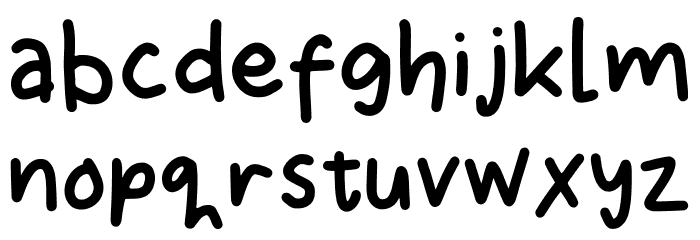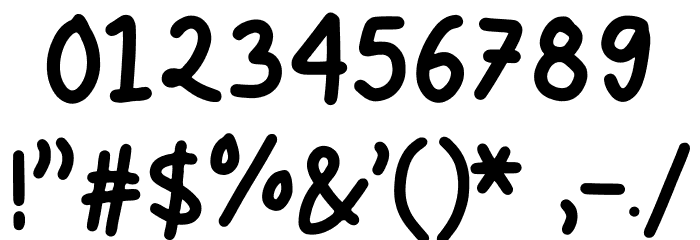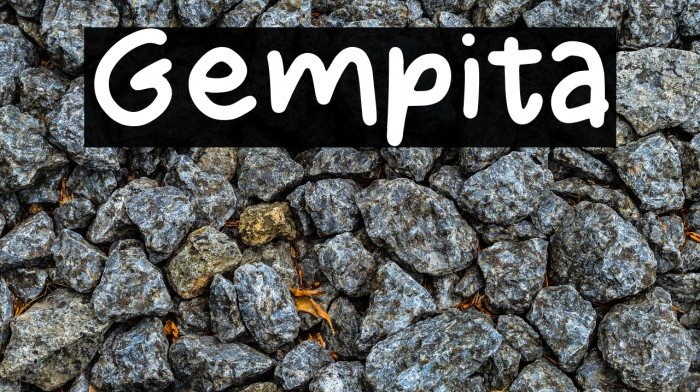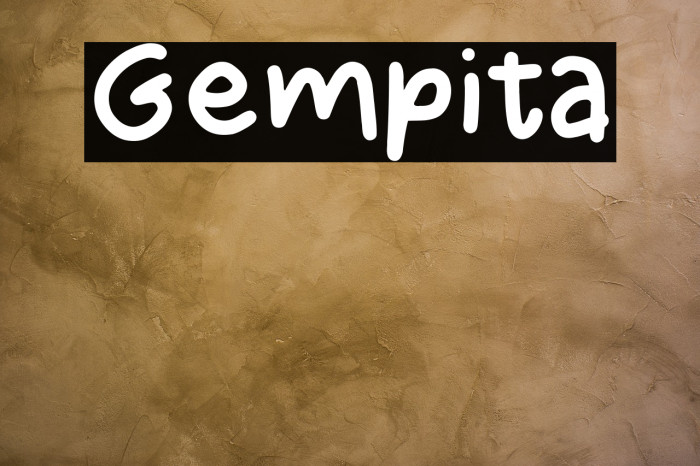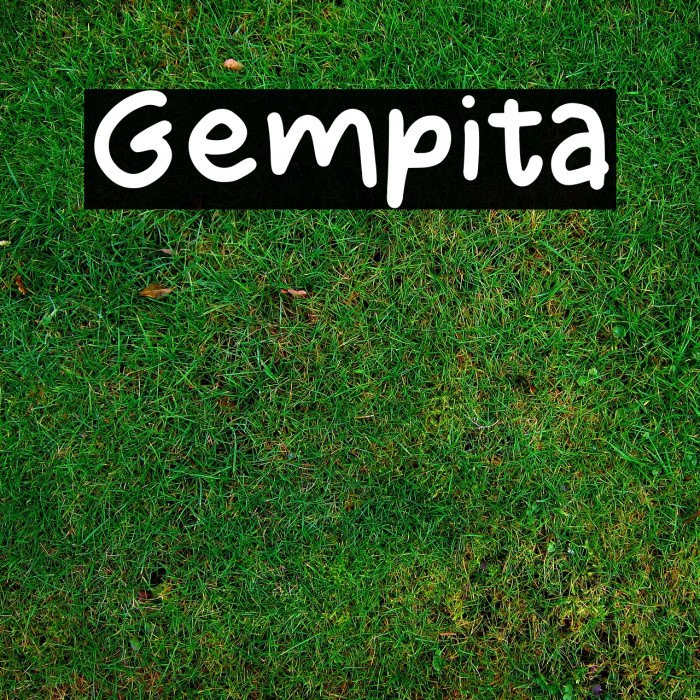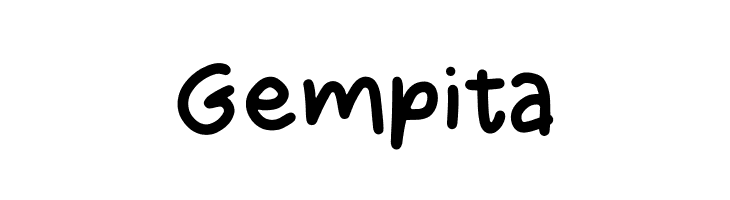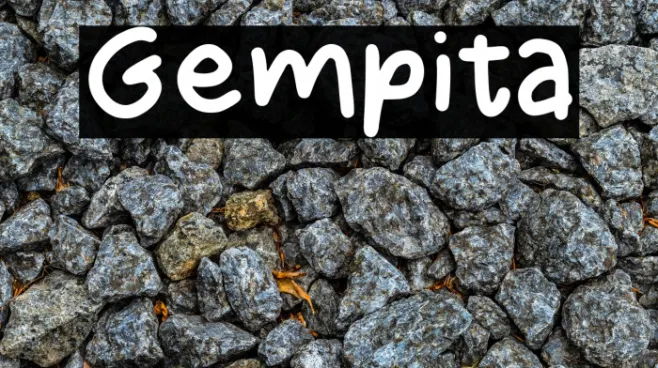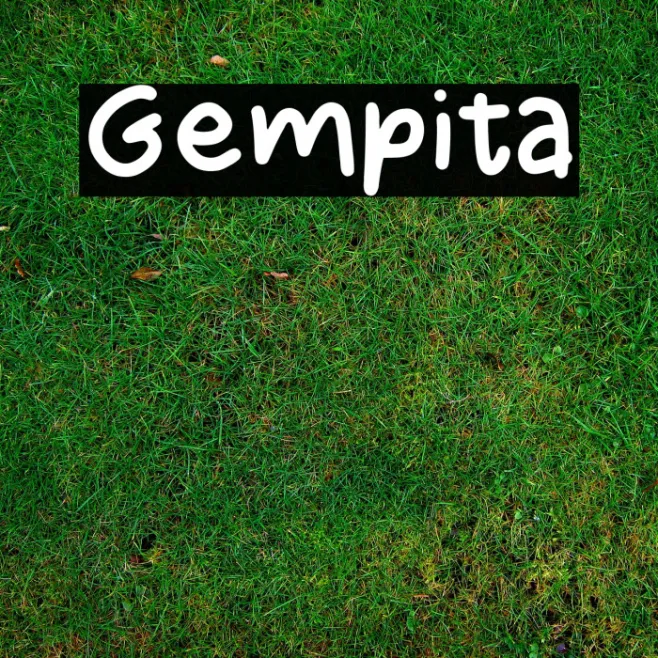
Gempita Font
This playful and energetic font features a handwritten style with bold, rounded characters. The letters have a casual and friendly appearance, making it ideal for projects that require a personal touch. The uppercase and lowercase letters are well-balanced, with consistent stroke widths that add to its readability. The numerals and special characters maintain the same lively style, ensuring a cohesive look across all text elements. Its informal nature makes it suitable for creative and fun designs, appealing to a wide audience.
A bold, handwritten font with a playful and friendly style.
- Proposed Projects: Ideal for children's books, greeting cards, playful branding, and social media graphics.
- Category: Handwritten
- Overall Style: Playful
- Use Case: Headlines, Logos, Informal text